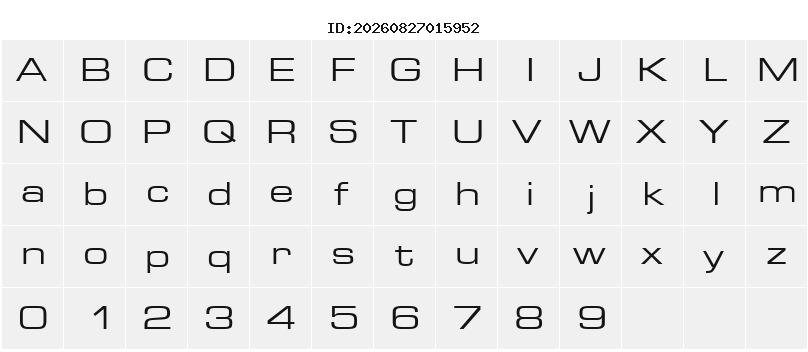
About 843-CAI978.ttf
843-CAI978.ttf is a modern, elegant sans-serif font designed for ultimate readability and visual harmony. Perfect for branding, headlines, web design, and print materials.